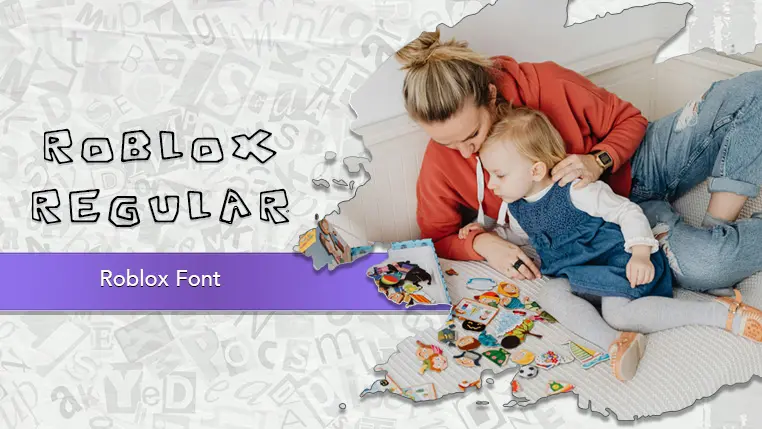
The Roblox font family may be ideal for you if you enjoy working on an artistic design project. The lively, expressive look of this typeface, which was created by philipwesoloski, makes it ideal for Headlines or titles for children's apps, games, or educational content, Branding for products or services aimed at young gamers, Event posters for gaming conventions or school fairs. and other light-hearted visual projects.
Regular are the one primary font styles of the Roblox font family. You may build dynamic, visually appealing text layouts with the distinct flair that each style offers. With crisp, readable lines and a relaxed tone.